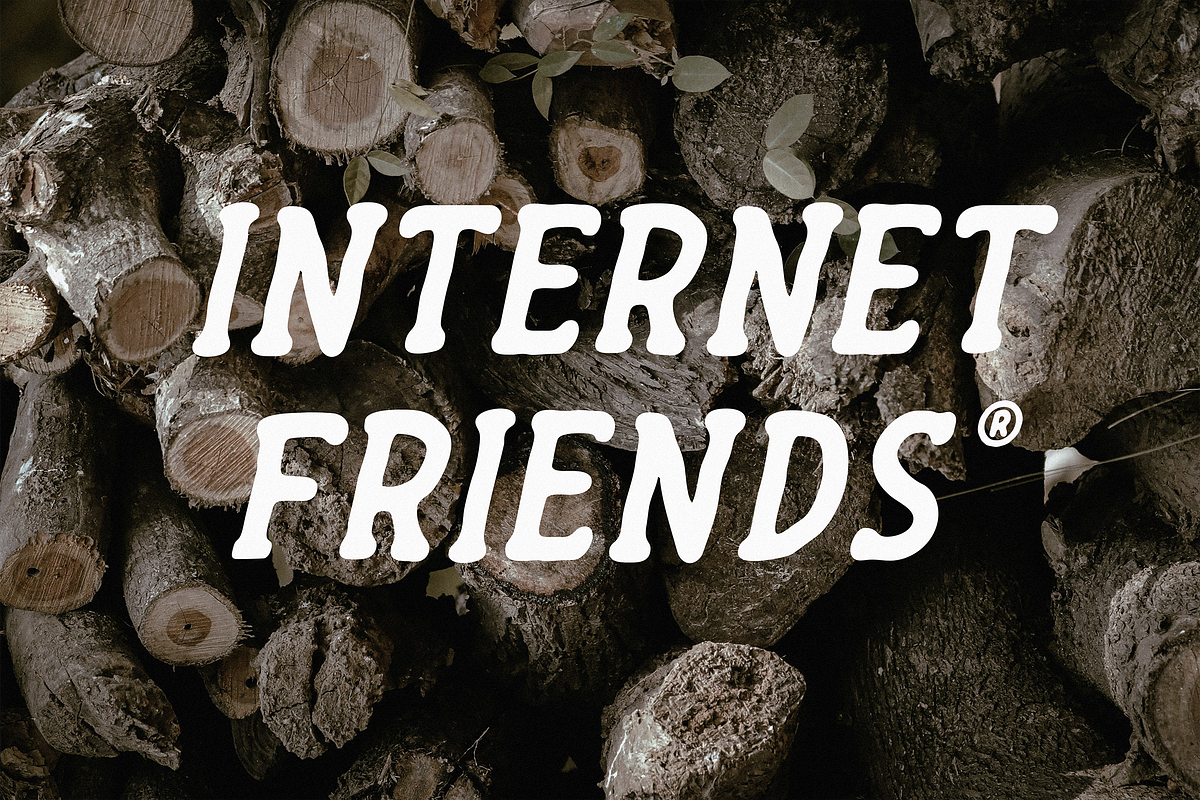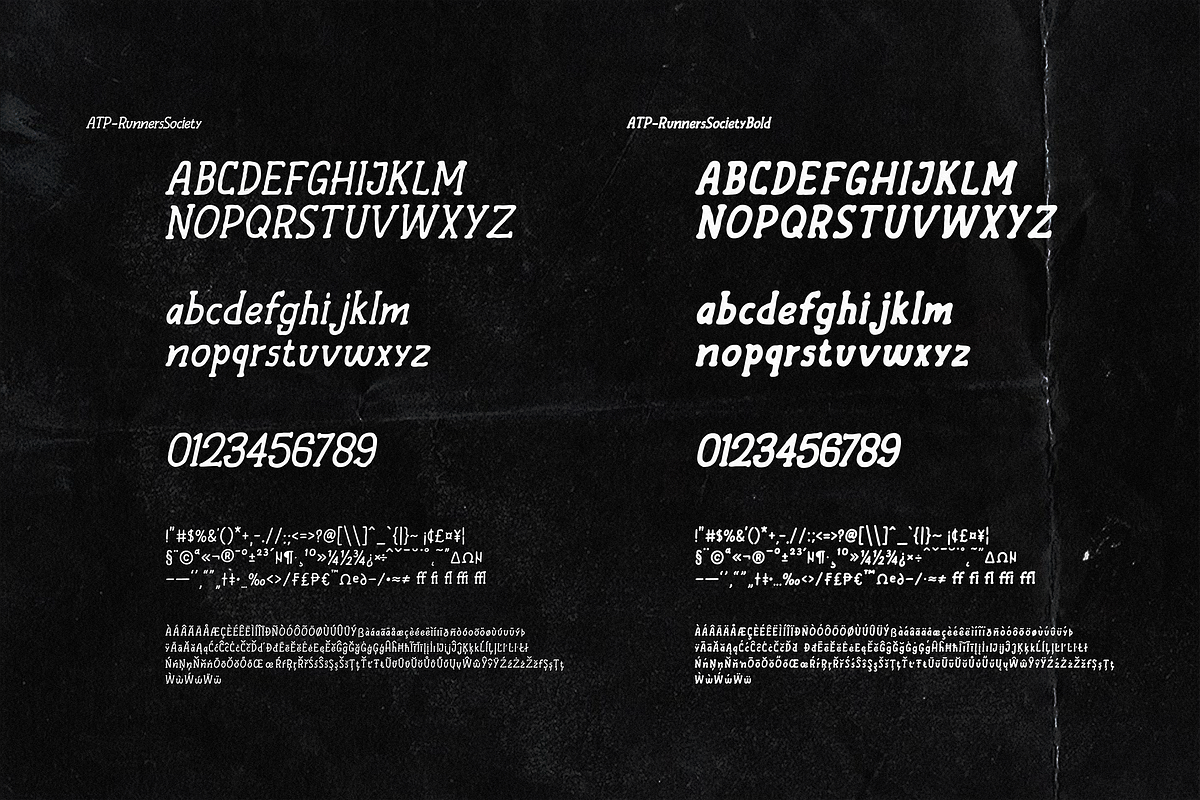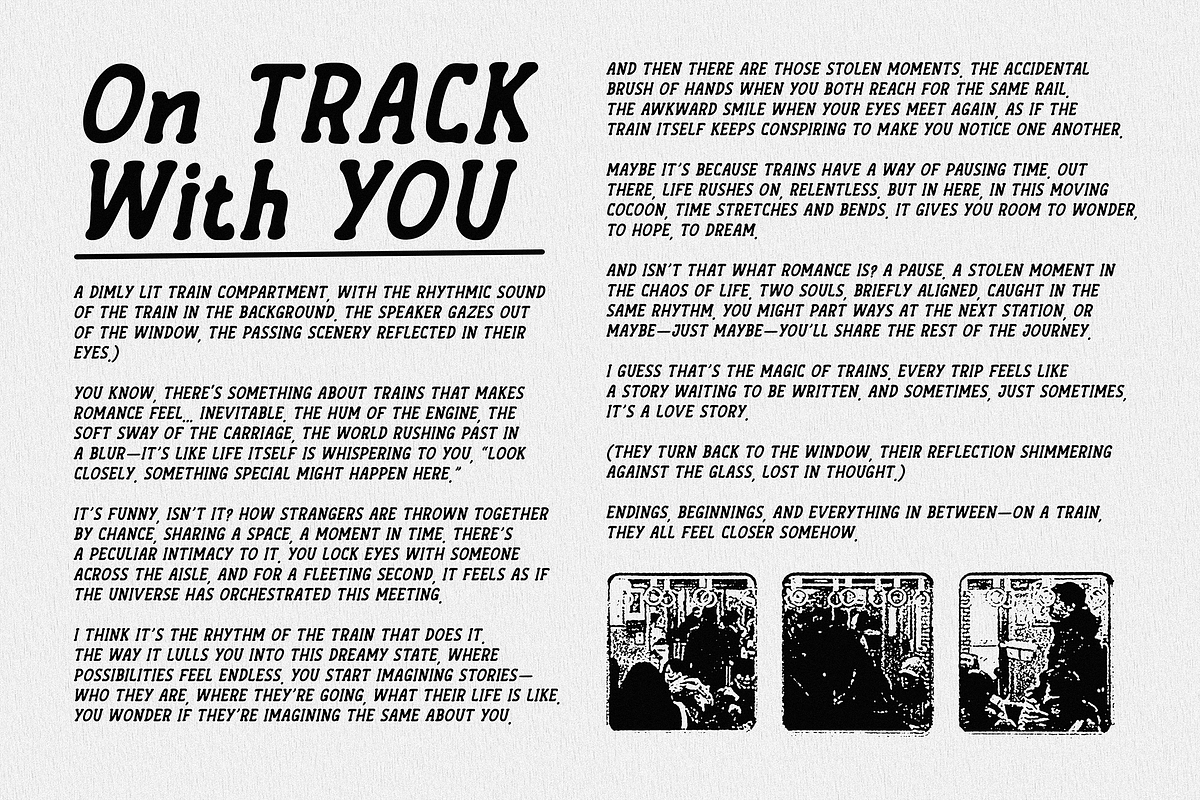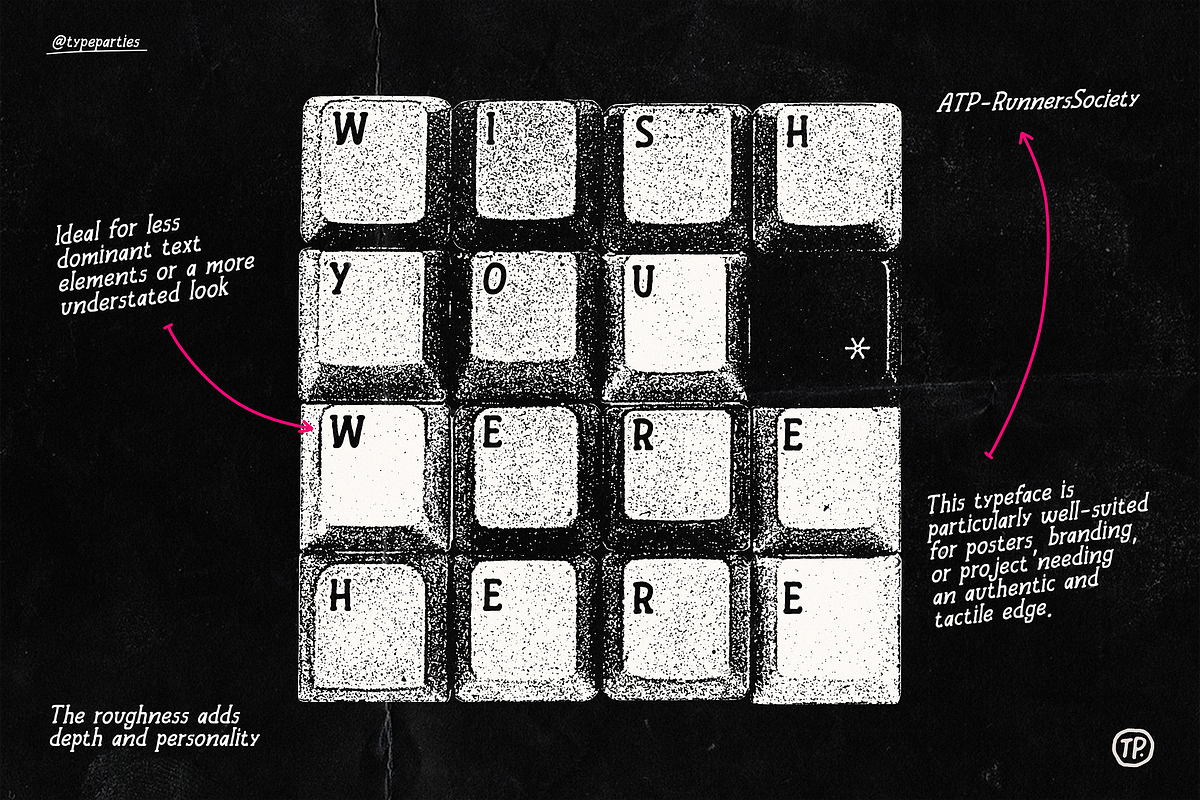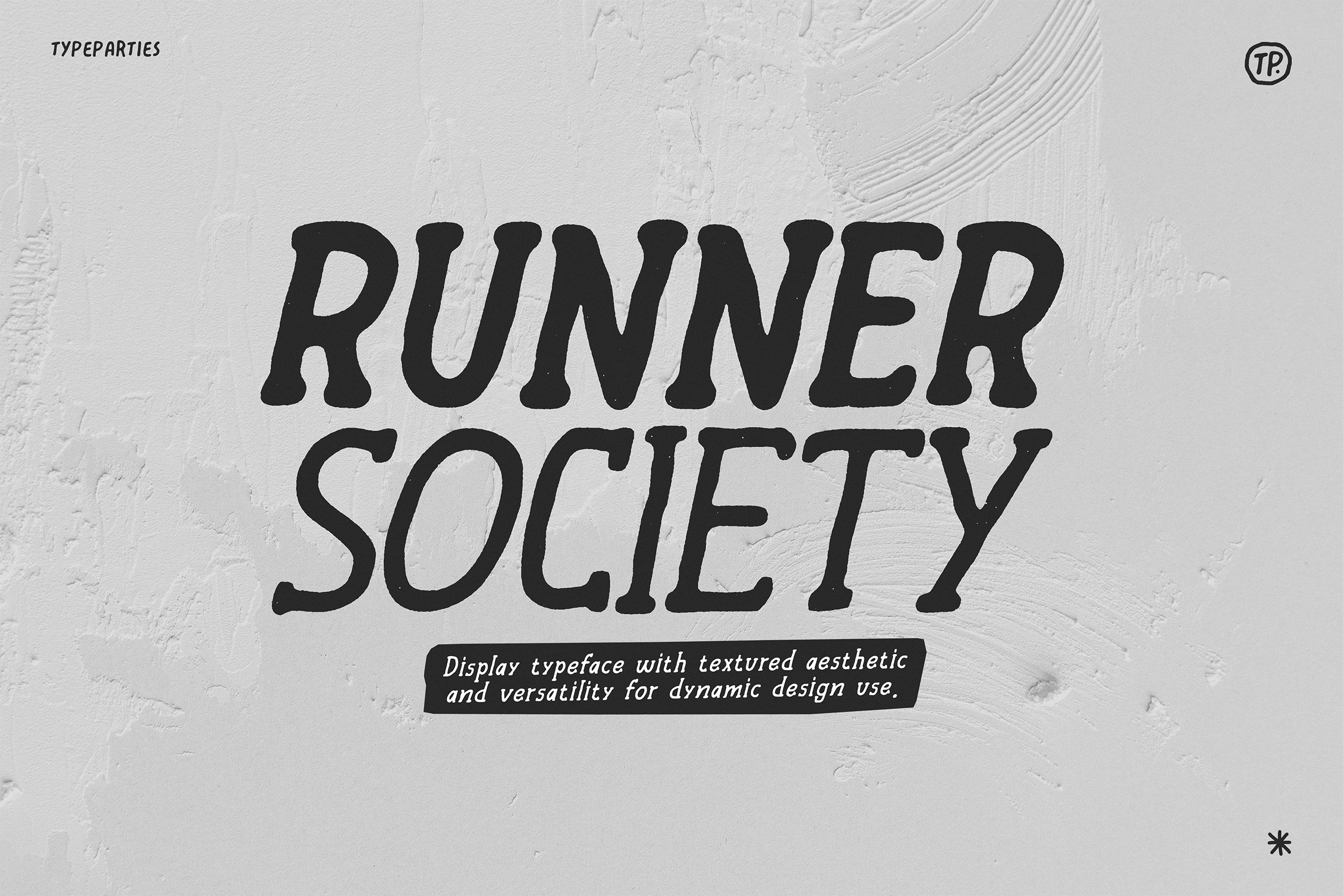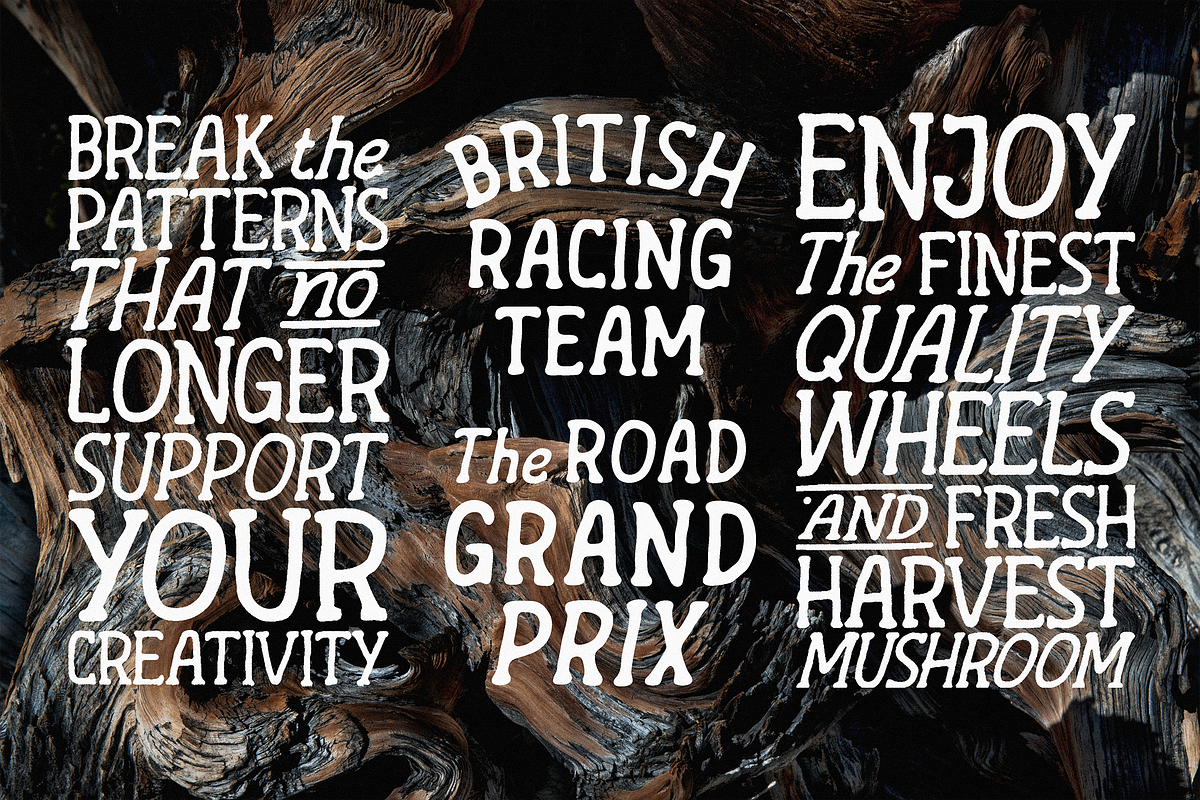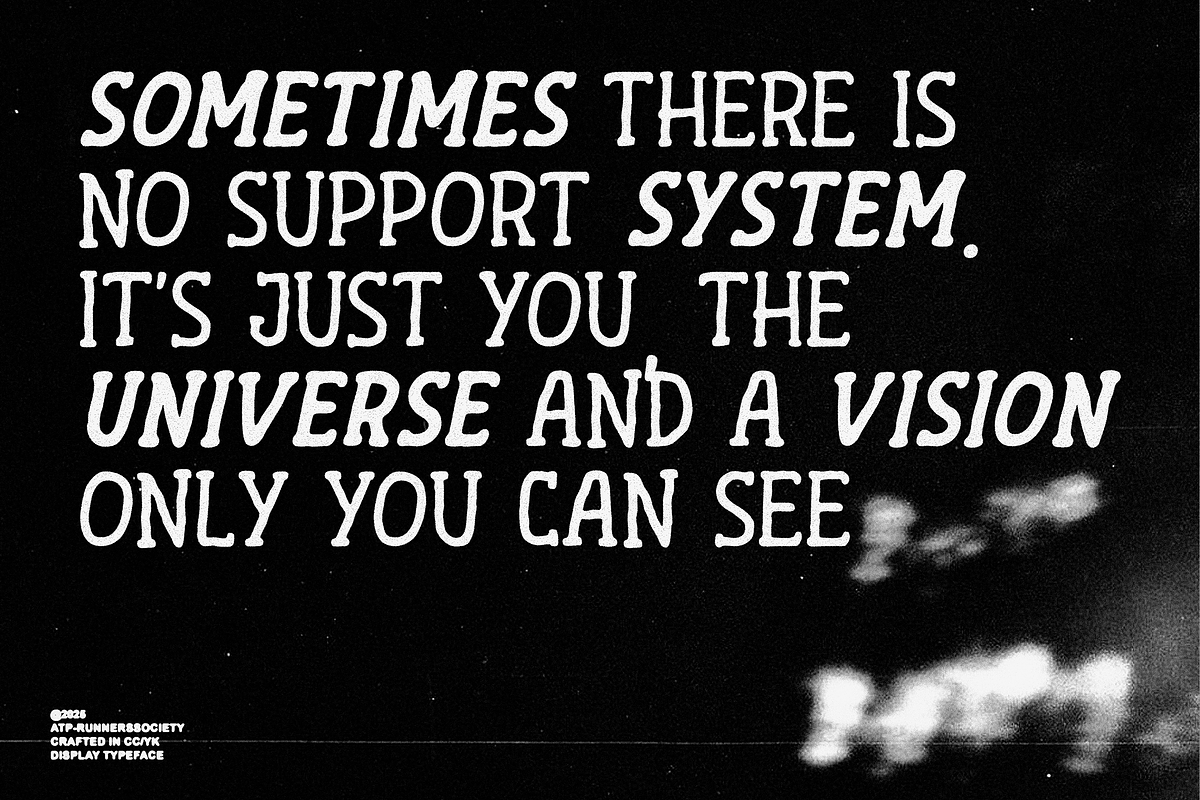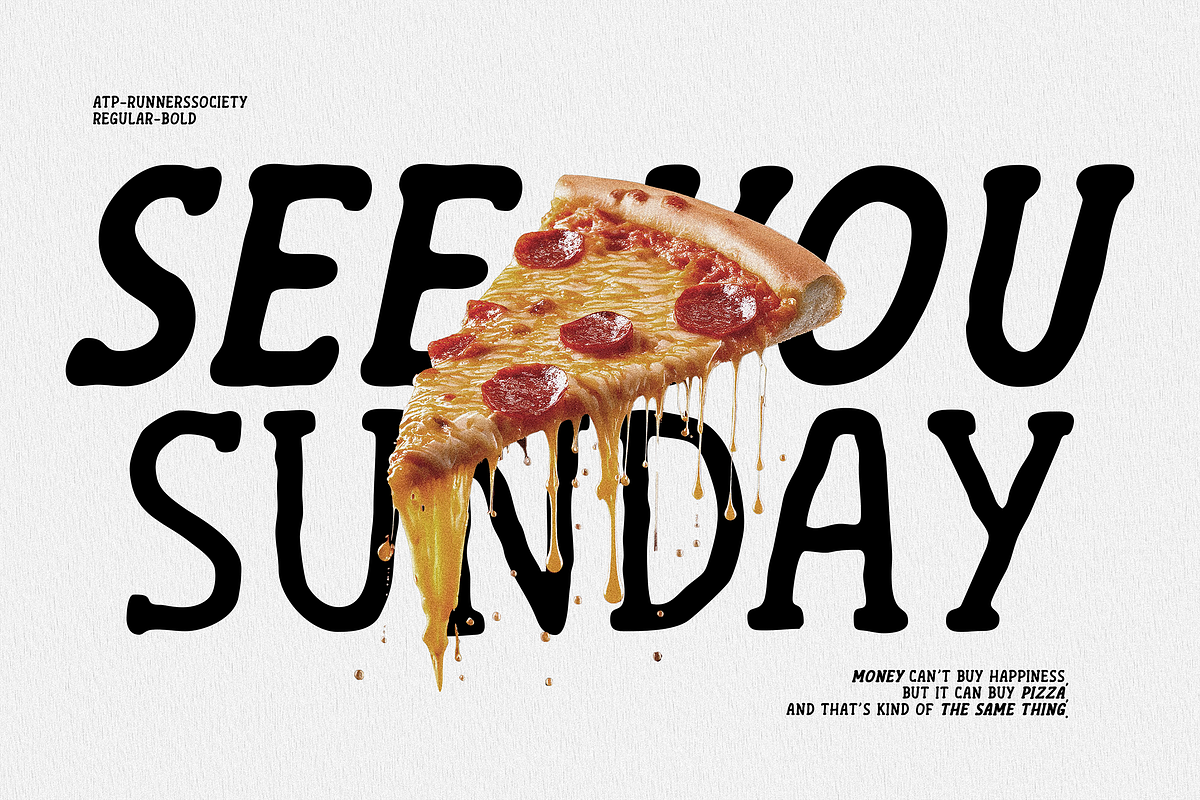
Runners Society Retro Serif Font
Runners Society is a display rough font with regular and bold styles combines the raw, textured aesthetic of rough typography with versatility for dynamic design use. The regular style offers a balanced, subtly distressed appearance, ideal for less dominant text elements or a more understated look. The bold style, on the other hand, features a stronger, more pronounced texture, making it perfect for headlines, titles, or key visual elements where maximum impact is required. Together, these styles provide designers with flexibility, allowing seamless pairing for hierarchy and contrast while maintaining a cohesive, rugged aesthetic. This typeface is particularly well-suited for vintage posters, artisanal branding, or any project needing an authentic and tactile edge.